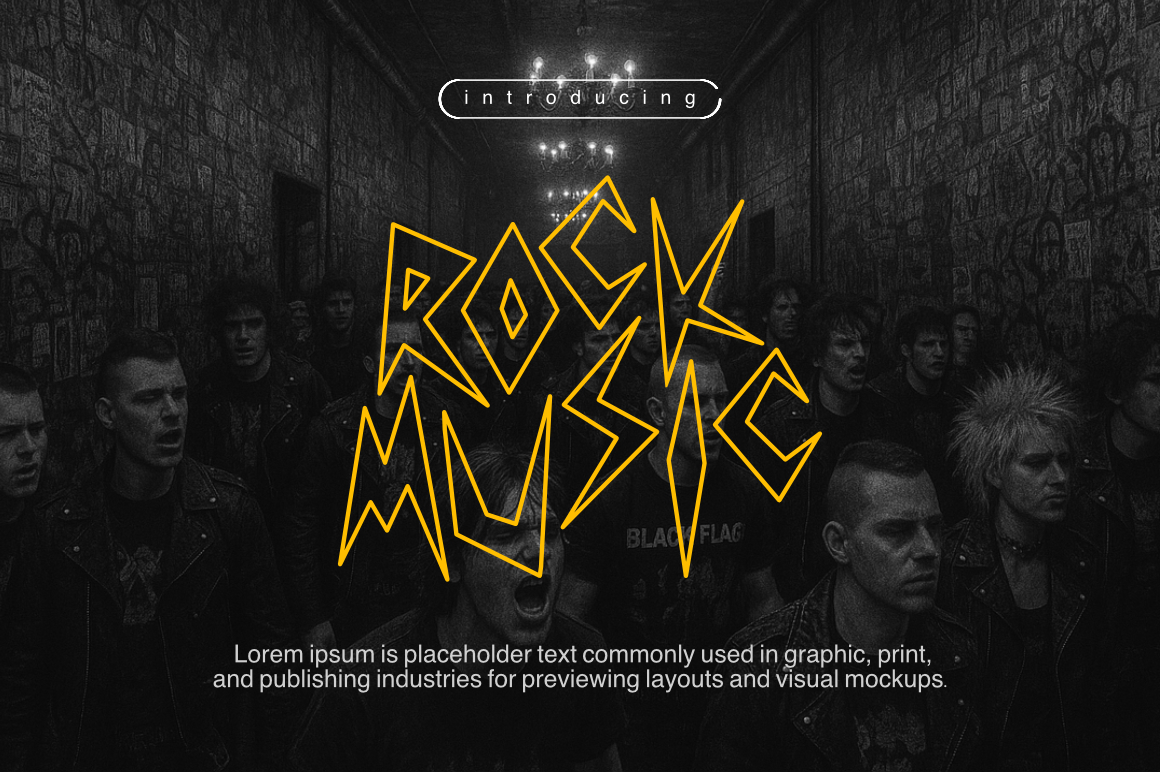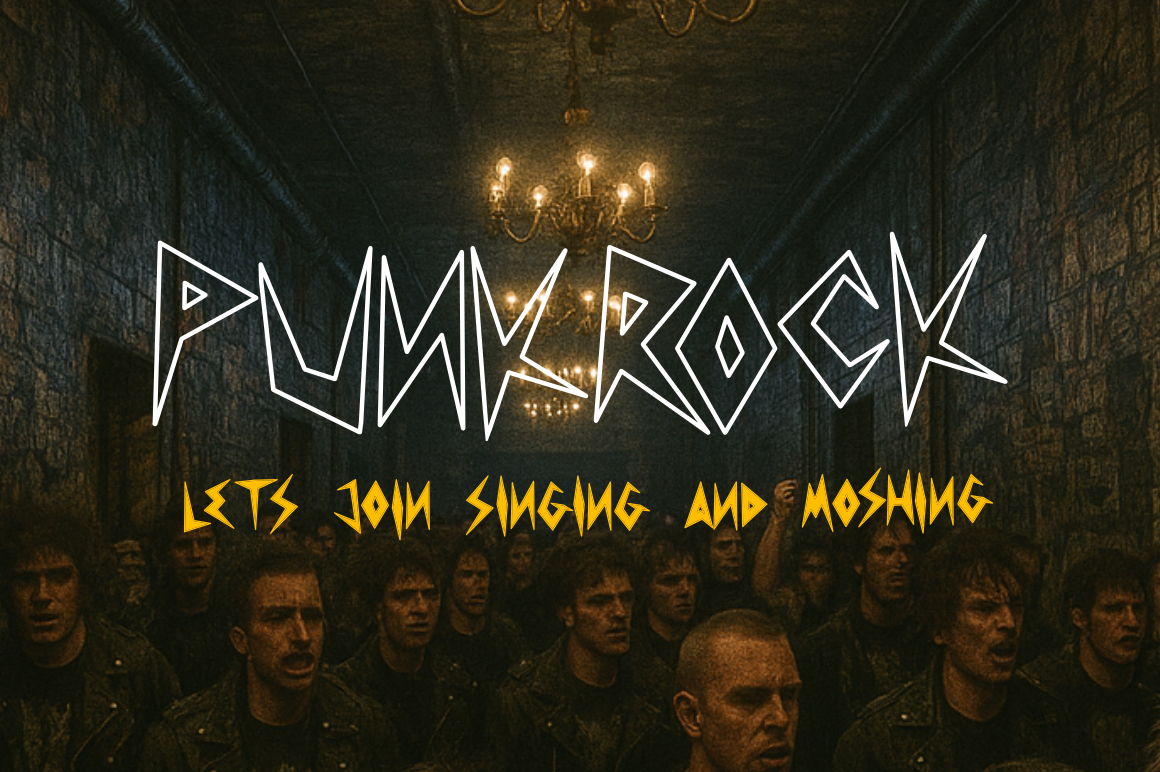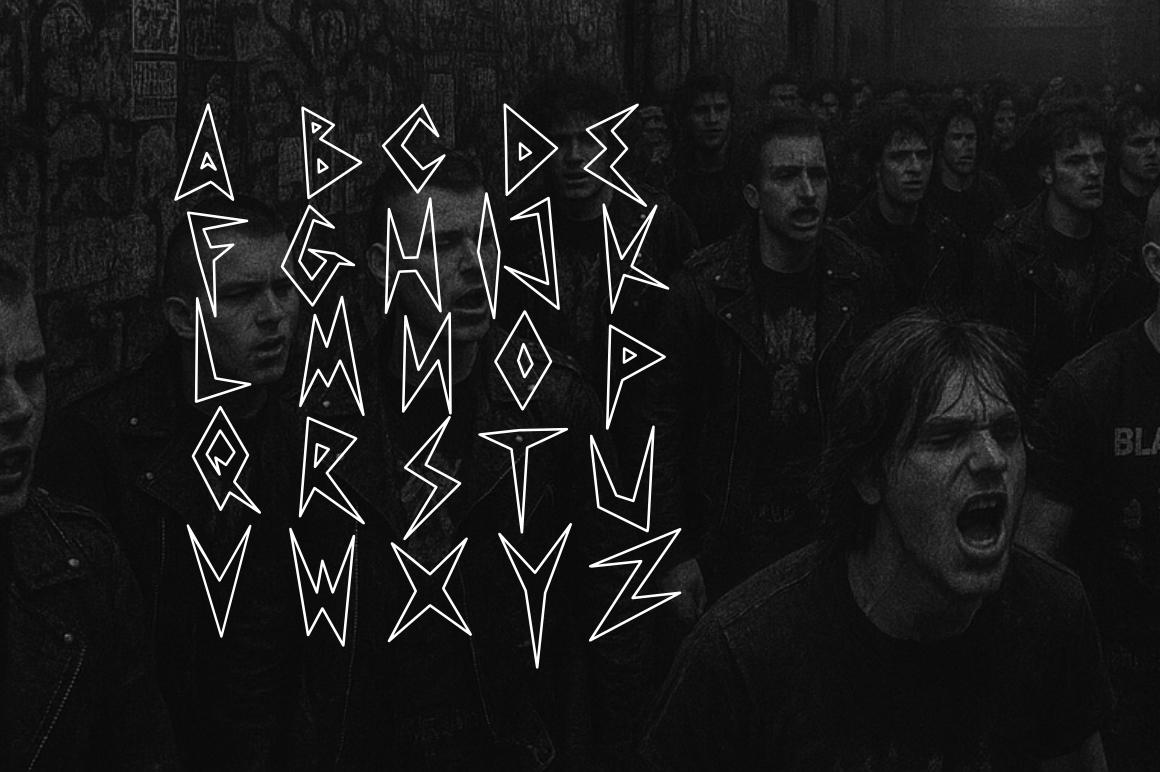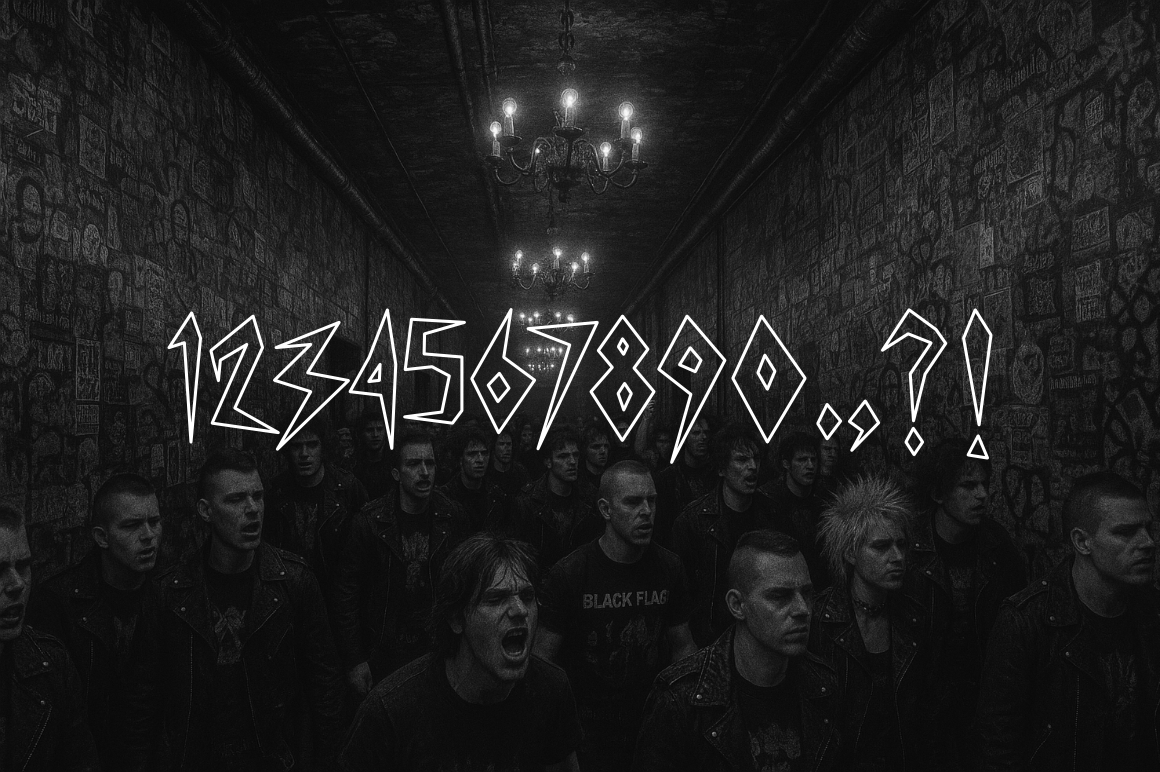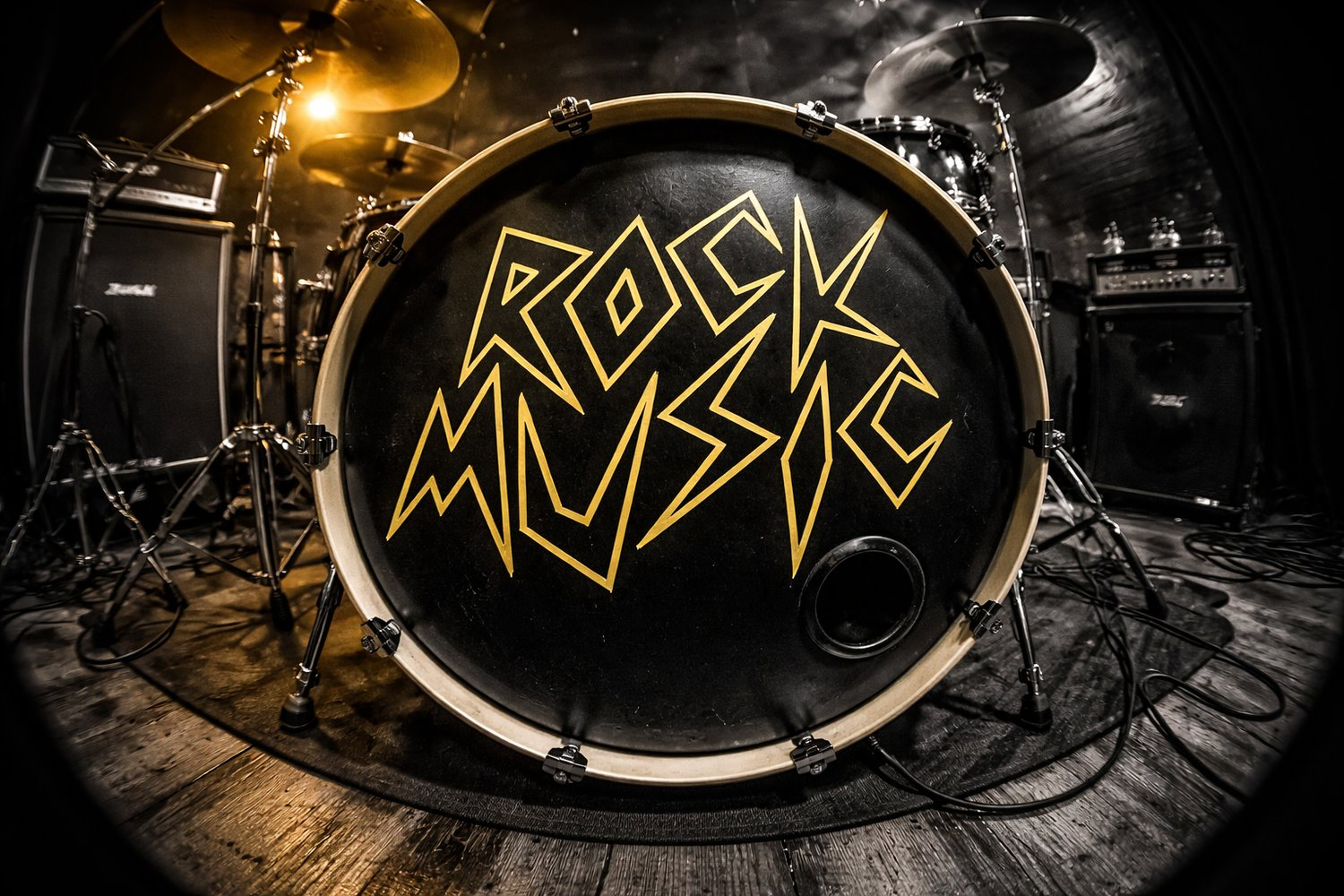
Rockmusic Font
Font Rockmusic–
Punk Rock Totem is rock music style Font With Young free Model Font. Rock Music Totem has a rock stars character and display typeface. Punk Rock totem is a font inspired by rock and roll styles.
This font is perfect for projects with gigs and concert themes. But this font is also suitable for logos, branding, greeting cards, invitation cards, advertisements, titles, headlines, book titles, stickers, packaging, quotes, posters, billboards and others.